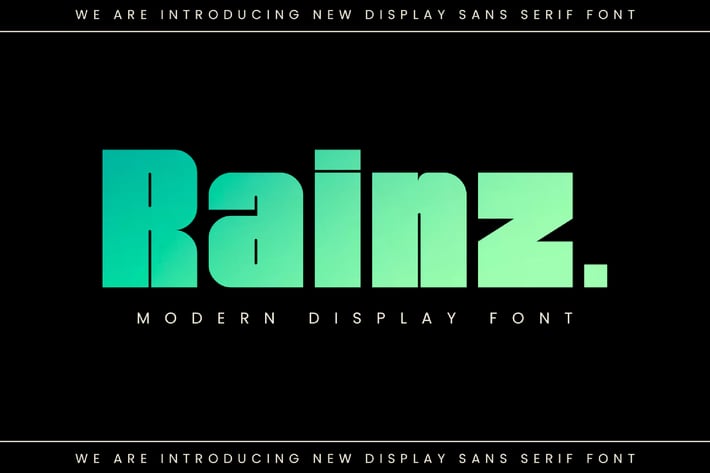
Rainz Sans Serif Font
Rainz Sans Serif is a modern and very striking typeface. Very suitable to be combined with invitation card designs, company logos, film titles, film names, business cards, book titles, brand names and various other designs. Rainz Sans Serif is a modern and very striking typeface. Its stylish alternation and binding make this font the perfect partner for any project.